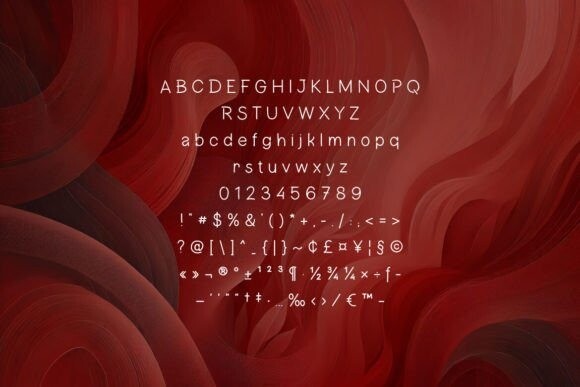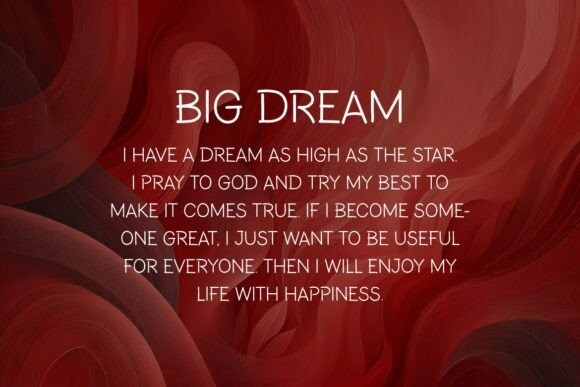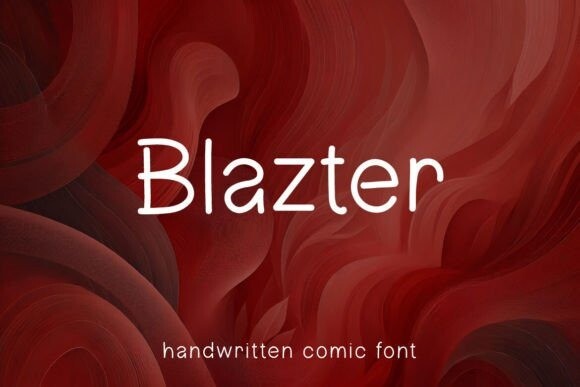
Blazter Typeface
Blazter Typeface is a sleek and modern handwritten font designed to add a personal and stylish touch to your creative projects. With its clean and smooth strokes, Blazter offers a versatile look that works perfectly for a wide range of uses, from branding and logos to social media graphics, invitations, and more.
The font’s natural flow and contemporary style make it an excellent choice for anyone looking to create an elegant, yet approachable design. Blazter is fully optimized for readability in both digital and print formats, ensuring your text stands out beautifully on any platform.
Add a touch of elegance and sophistication to your designs with Blazter – the ultimate font for those who love simplicity with a unique flair!